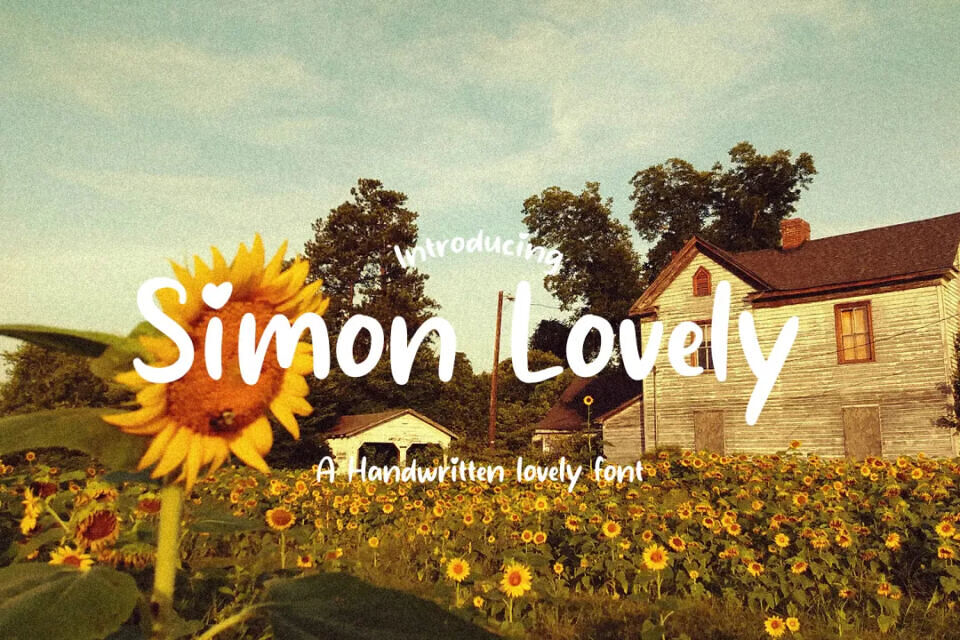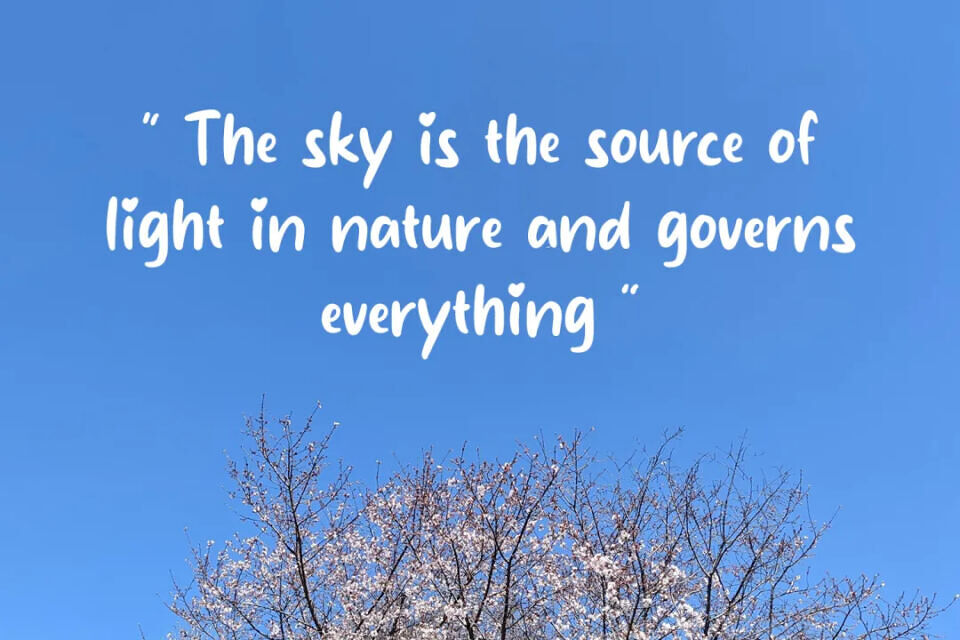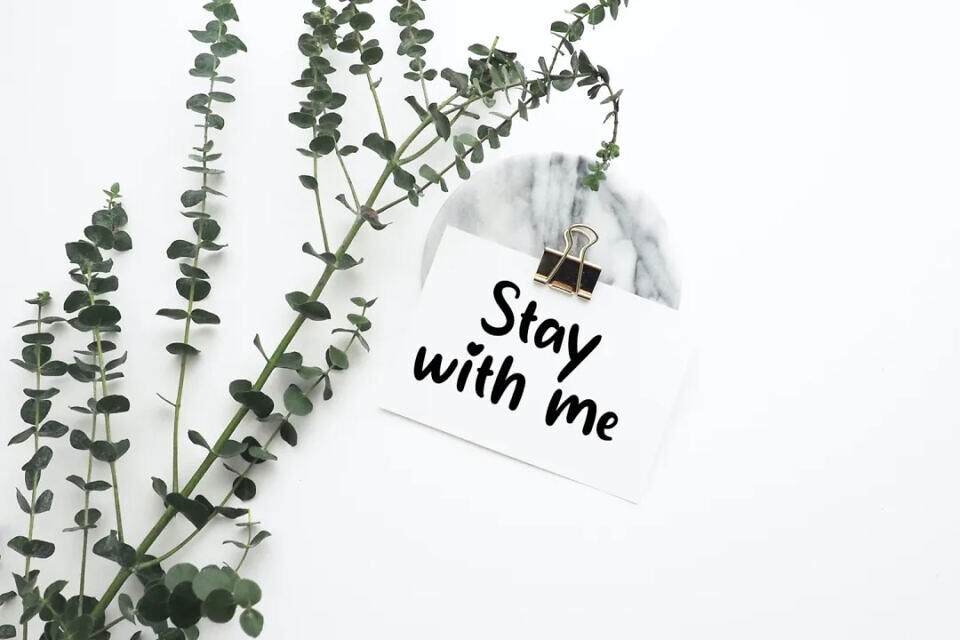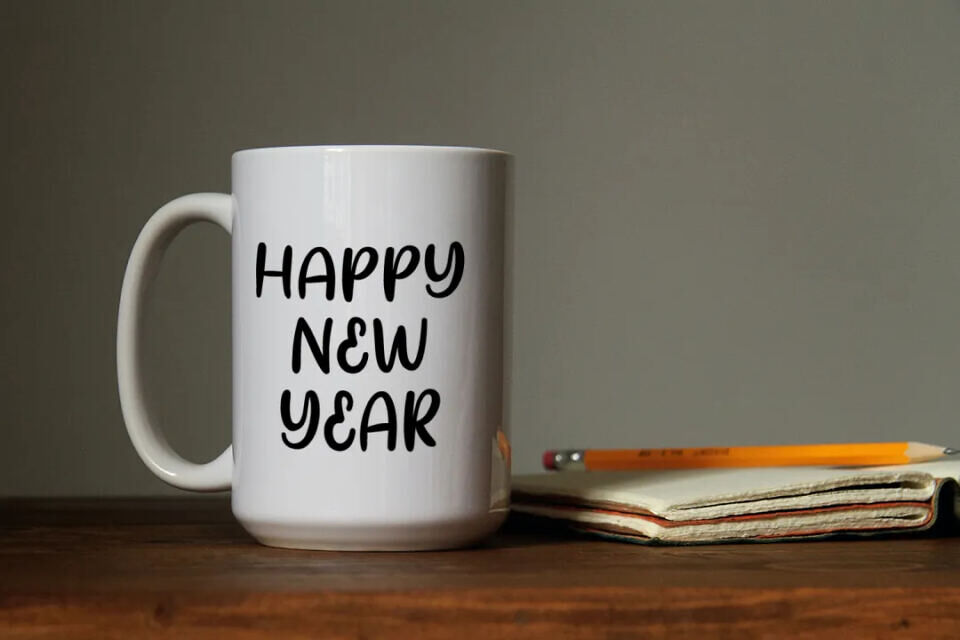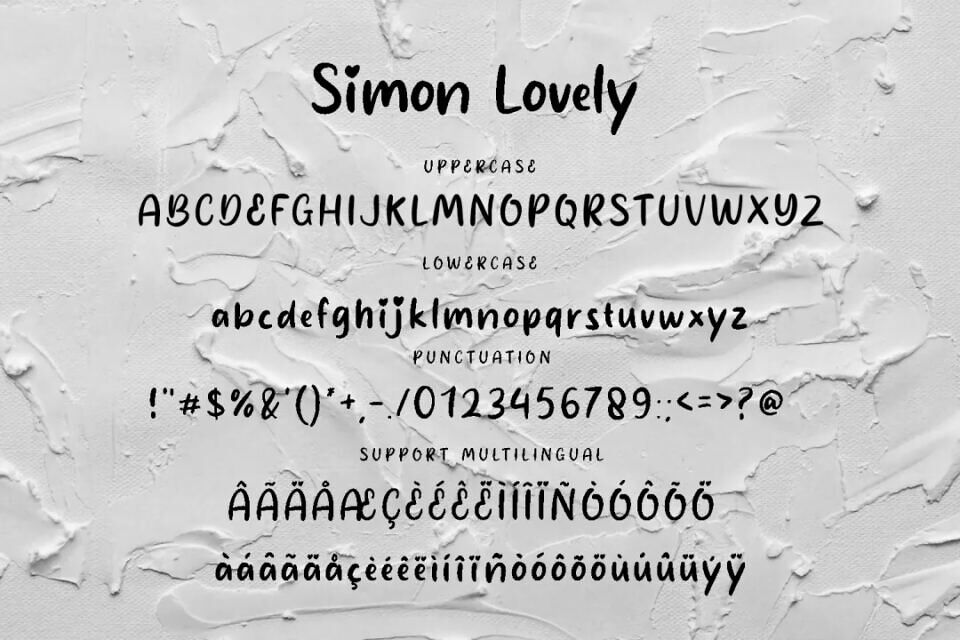
Simon Lovely is a charming cute handwritten script font with a soft, elegant flow and natural brush-style strokes. Its stylish curves and personal touch make it perfect for wedding invitations, branding, social media graphics, logos, quotes, and feminine design projects. The font delivers a warm, modern handwritten feel while maintaining excellent readability and creative versatility.